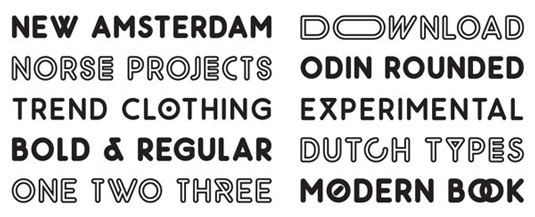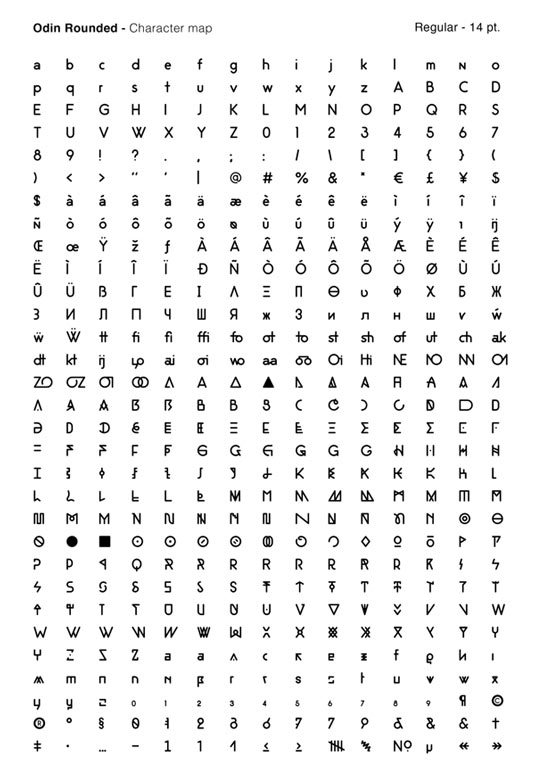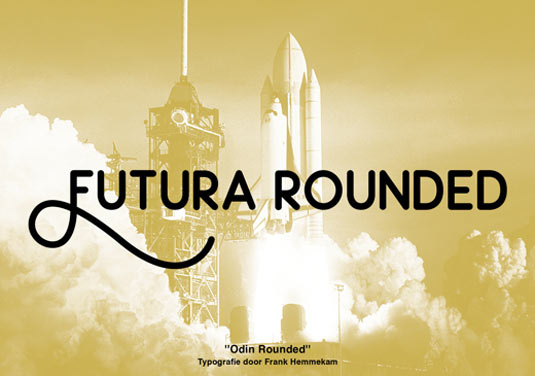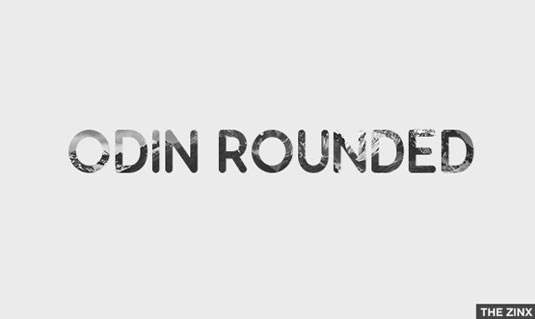
Font of the day: Odin Rounded
Every day we showcase the best fonts on the web. Today it's Odin Rounded by Frank Hemmekam, which is free to download!
Odin Rounded by Frank Hemmekam
Graphic design student Frank Hemmekam's type designs have featured regularly in our font of the day post. And he's kicked off 2014 with yet another brilliant font Odin Rounded, which is free to download!
"Odin Rounded is an free experimental font family with a clean and linear appearance," he comments on Behnace. "The simple compact nature of the design and the many alternates allows for great economy of space across layouts. It supports upper/lowercase, kerning and opentype features."